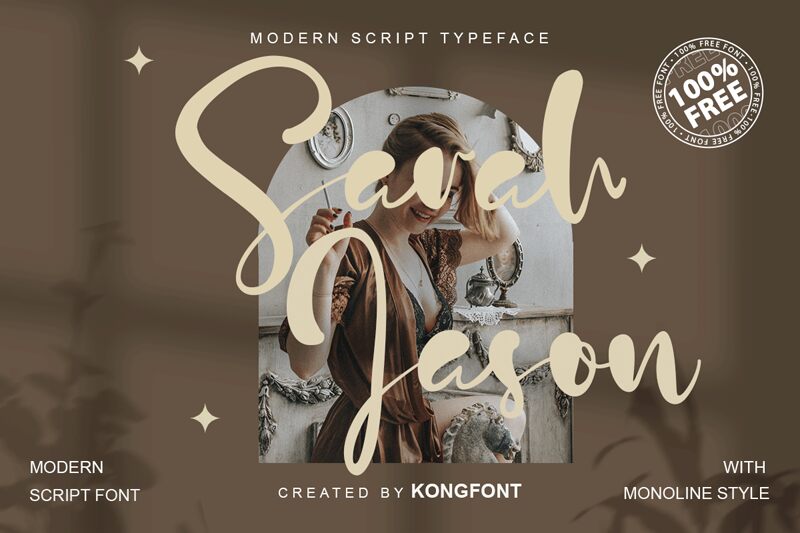
Sarah Jason
Sarah Jason by Kong Font is a modern script font that adds a touch of elegance and sophistication to any project. Its flowing curves and graceful strokes are perfect for wedding invitations, fashion branding, and luxury product packaging. This semi-bold typeface can be used in both print and digital media, making it versatile for various design projects. With its medium width, Sarah Jason is easy to read at smaller sizes while still maintaining its unique personality. Elevate your designs with the beauty of Sarah Jason, the modern script font that exudes style and class.